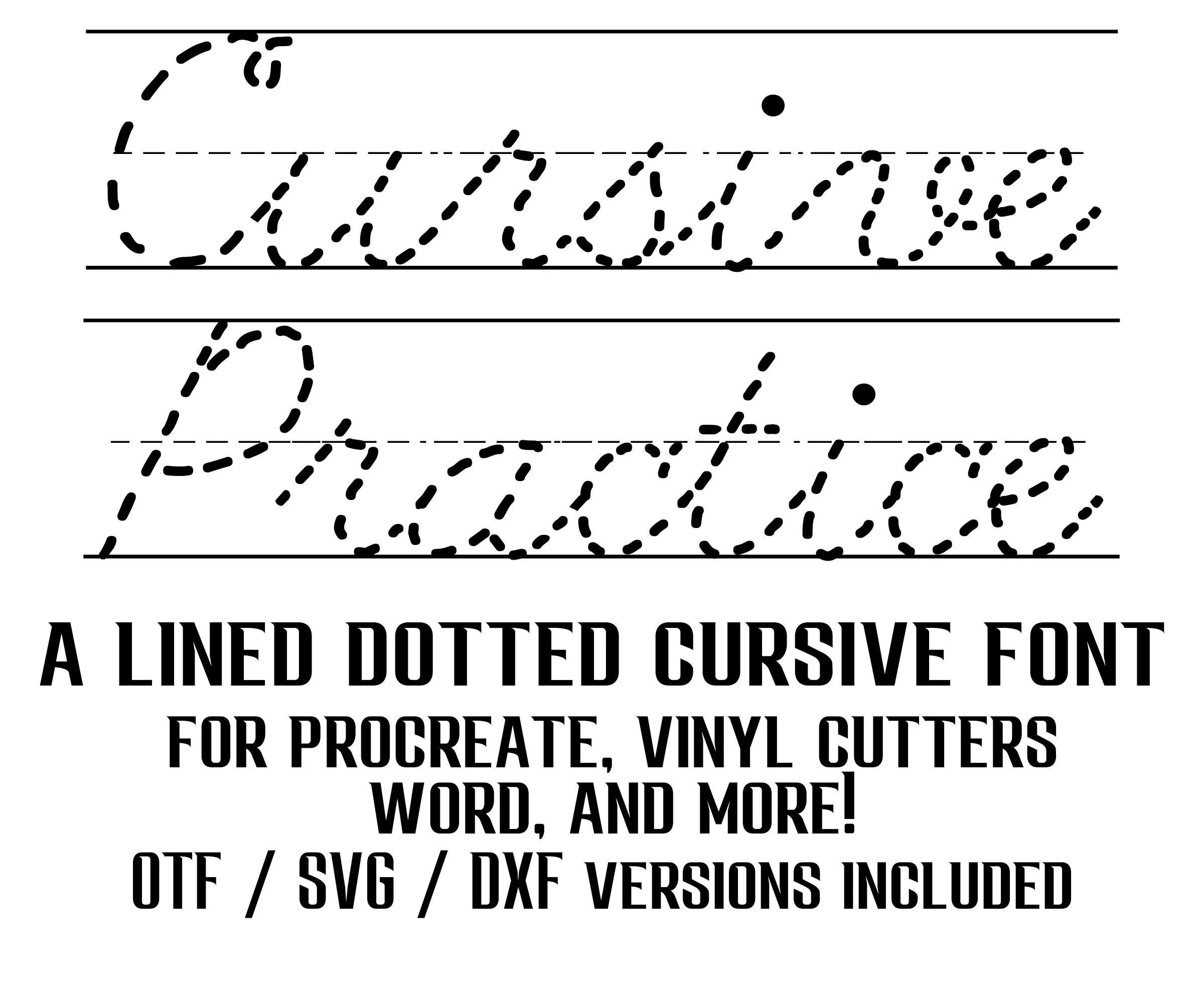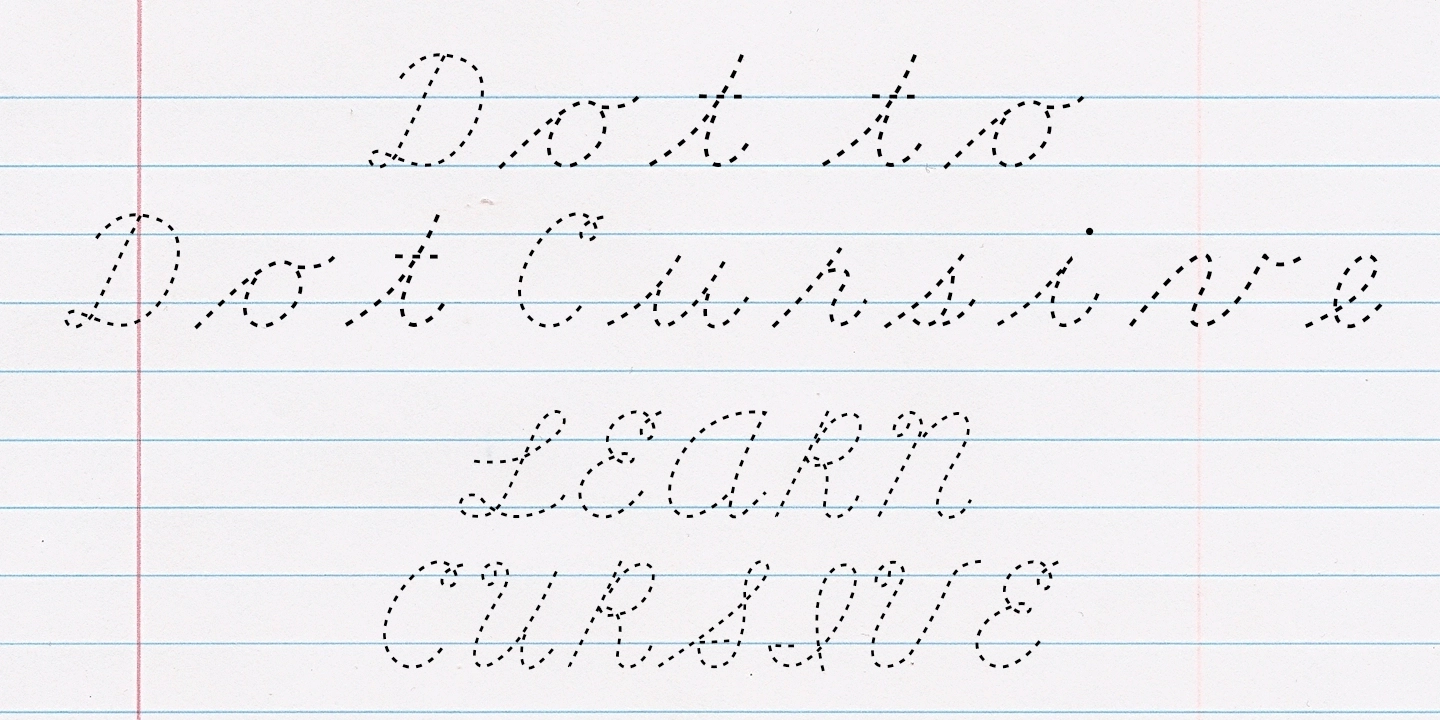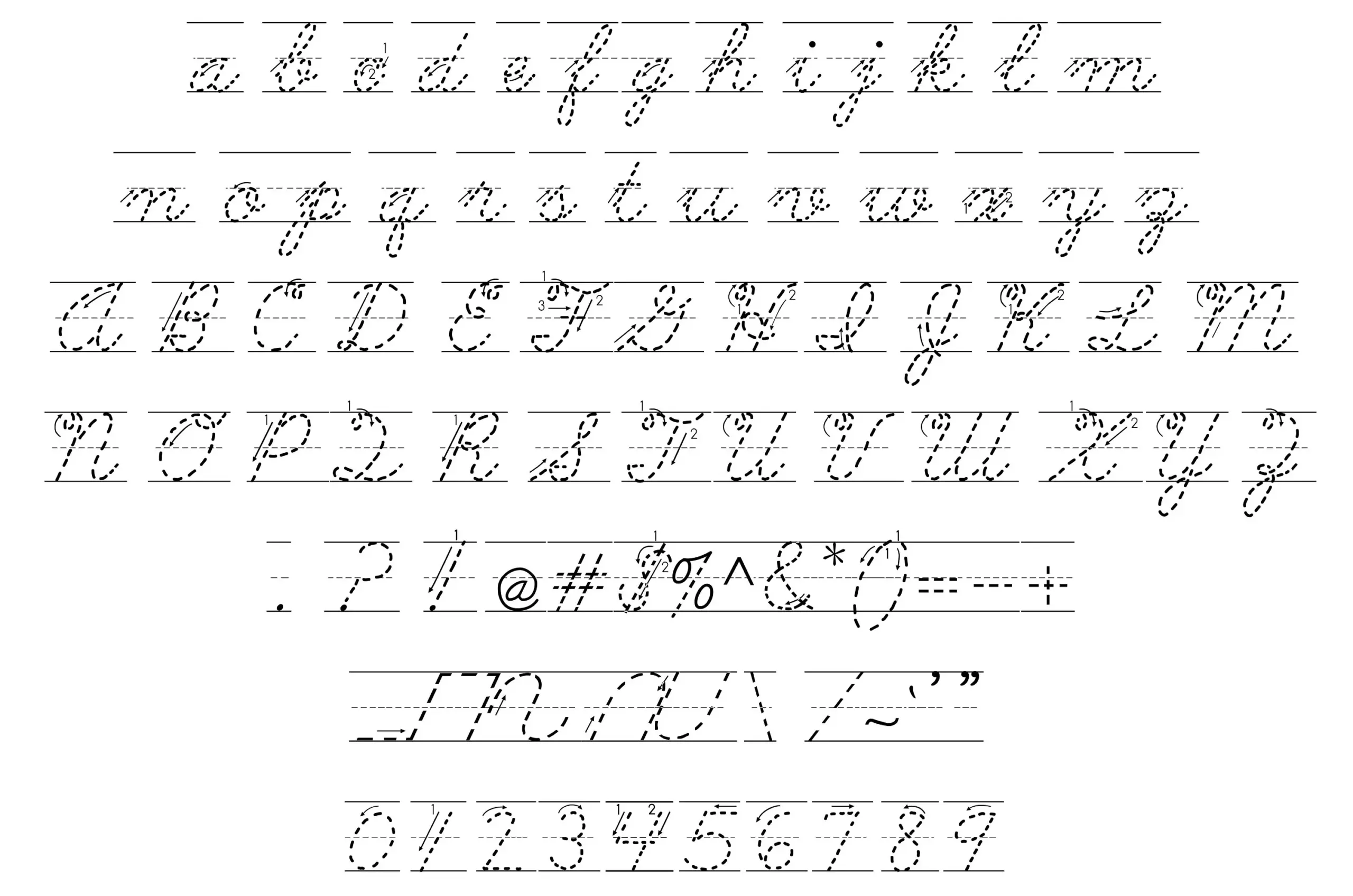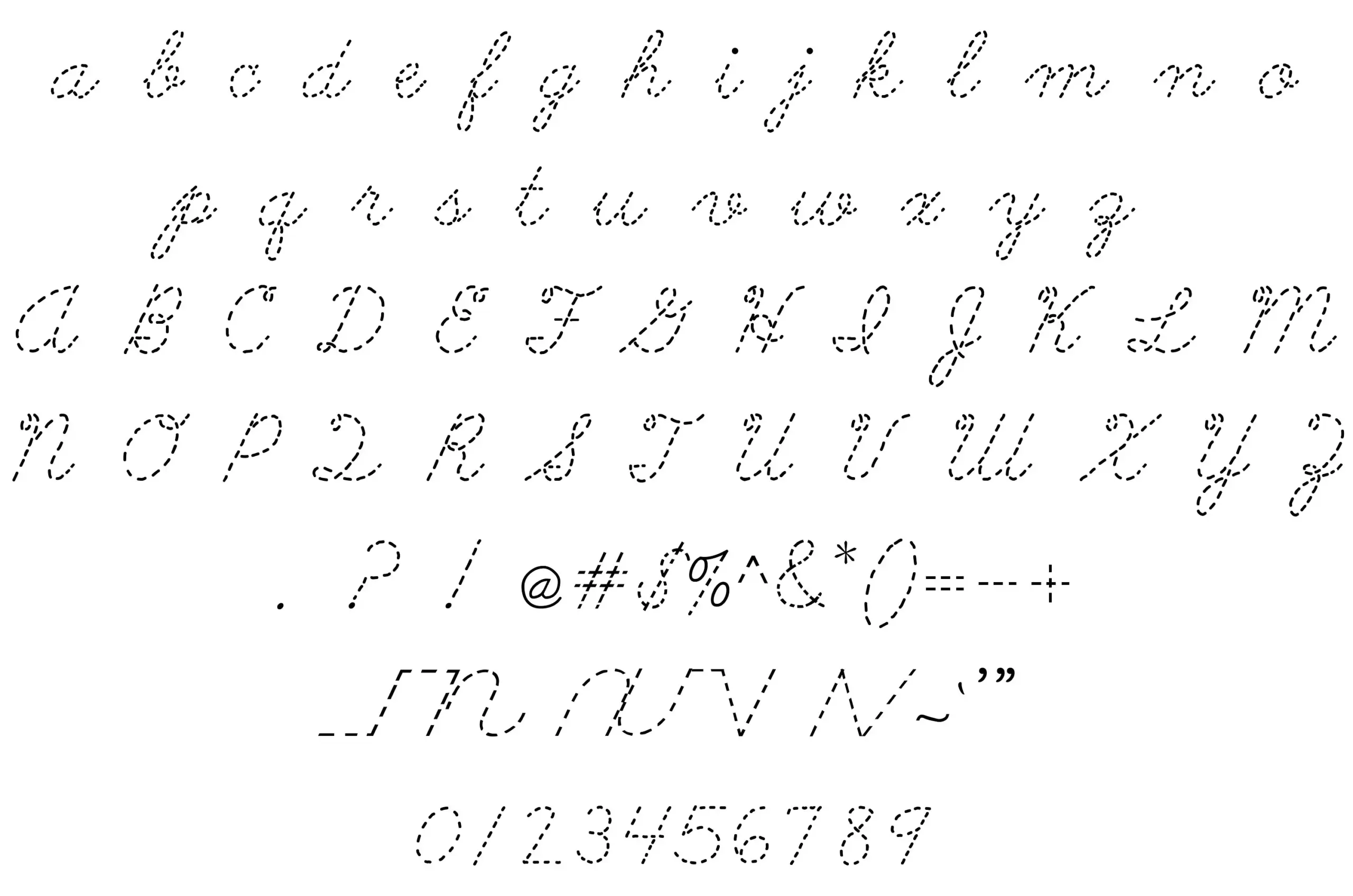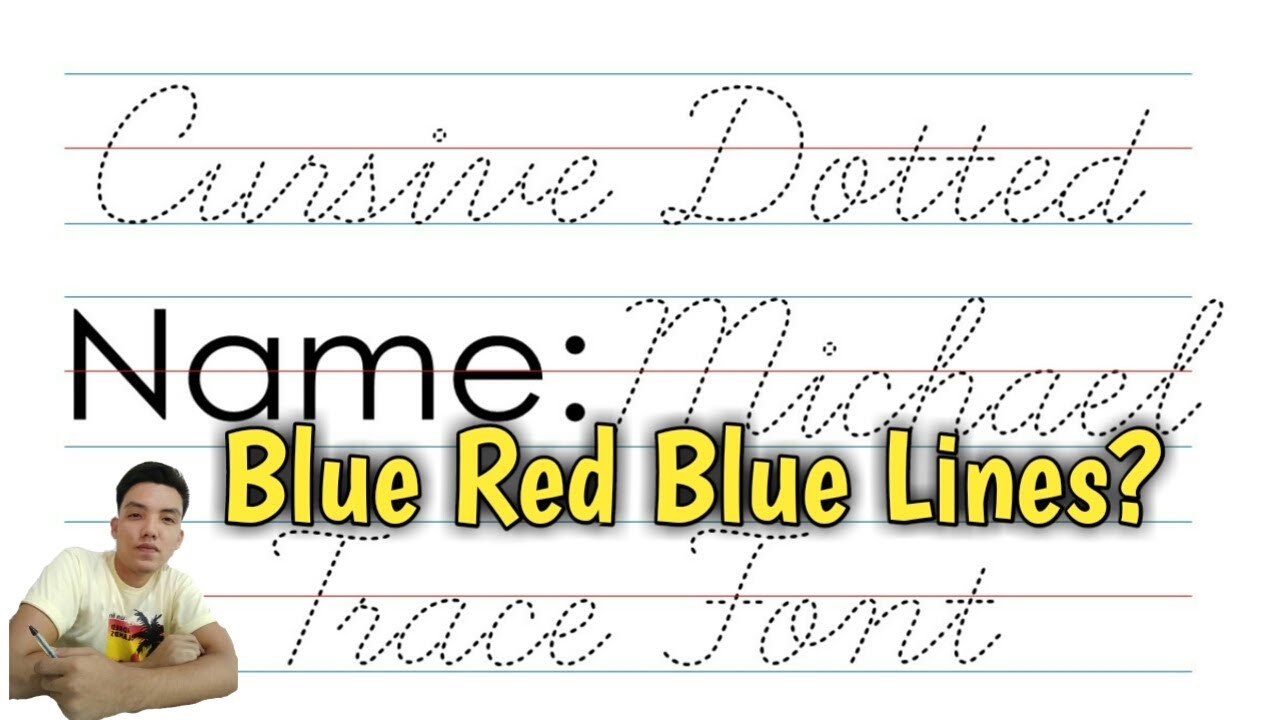
Cursive fonts add a touch of elegance to any project, making them perfect for invitations, greeting cards, and educational materials. Many people seek cursive dotted tracing fonts to help children learn handwriting in a fun way.
Using these fonts can make learning more engaging for kids. They can practice their writing skills while enjoying the playful design of cursive letters. This method encourages better retention and makes learning enjoyable.
Additionally, these fonts can be used in digital projects. Whether creating worksheets or designing personalized stationery, a cursive dotted tracing font adds a unique flair that stands out. It’s a simple way to elevate your work.
In conclusion, downloading a cursive dotted tracing font for free opens up many creative possibilities. It’s an excellent tool for both educational purposes and personal projects, making learning and crafting more enjoyable for everyone involved.